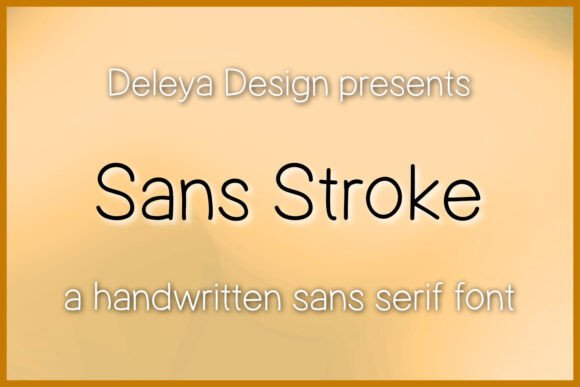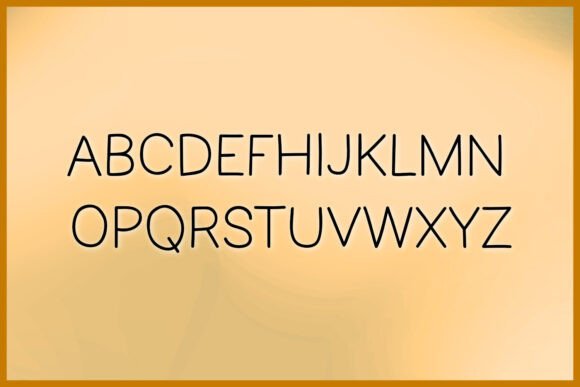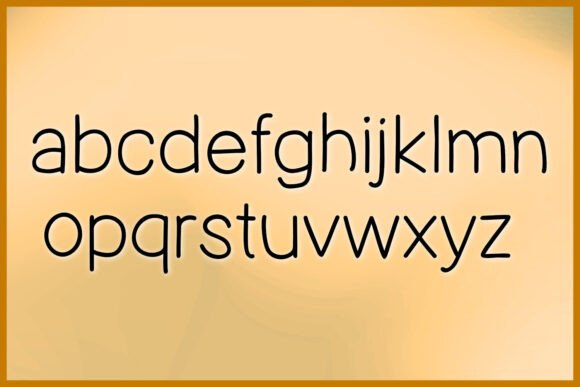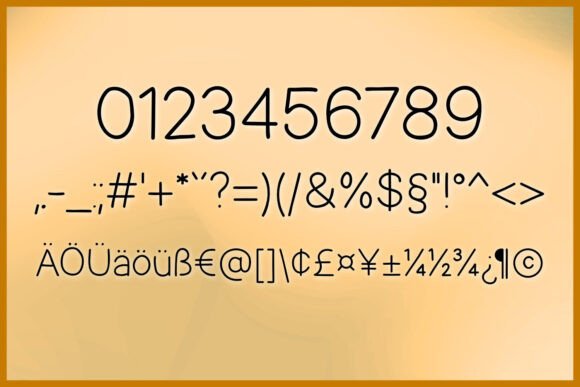
Sans Stroke Font
About the Sans Stroke Font
Add a touch of class to your work with the Sans Stroke Font, a truly exceptional typeface. Immerse yourself in the sleek elegance of Sans Stroke, an exquisitely thin, modern, and handwritten sans serif typeface.
It’s a global citizen, created with full acceptance of diverse languages in mind, inclusive of English, German, Spanish, Italian, French, Latin, and Portuguese. The refined artistry of Sans Stroke isn’t limited to alphabets; it also extends its delicate strokes to an array of glyphs, presenting a comprehensive set of punctuation marks.
Perfectly tailored for greeting cards, captivating posters, and impactful advertising, Sans Stroke is designed to embolden and amplify your creative expressions.